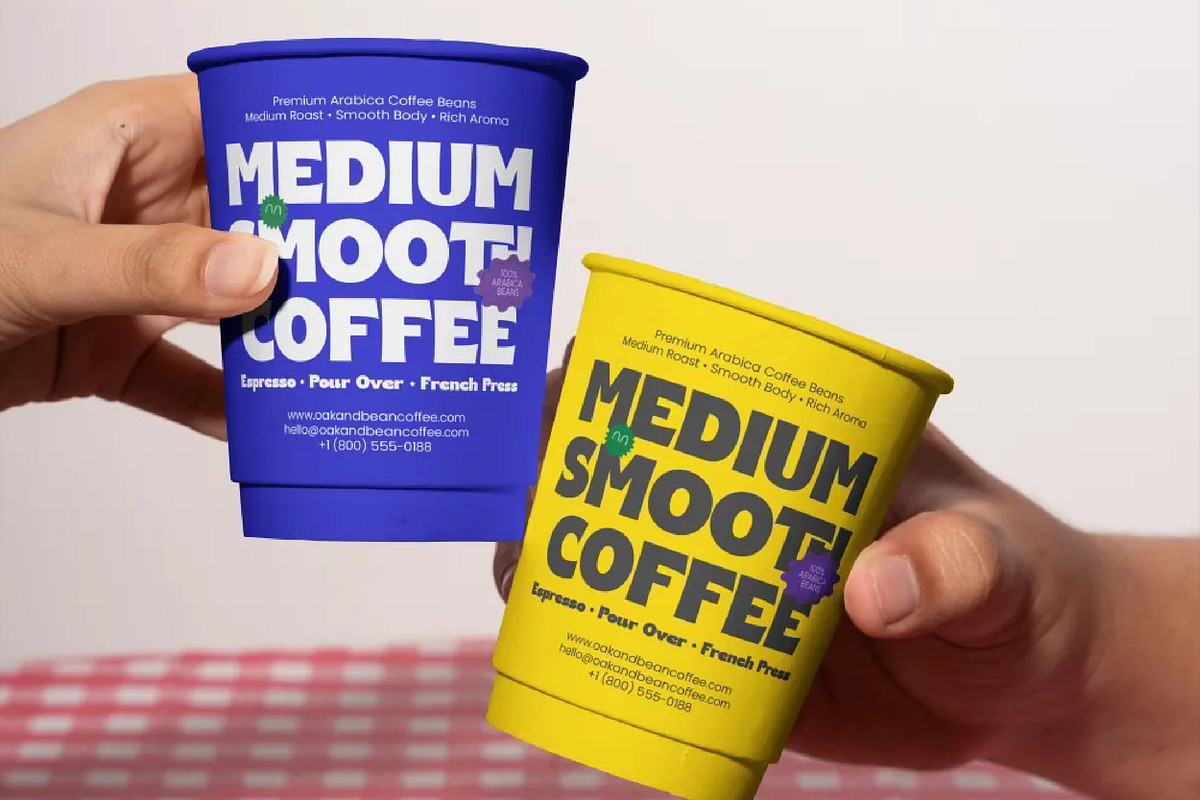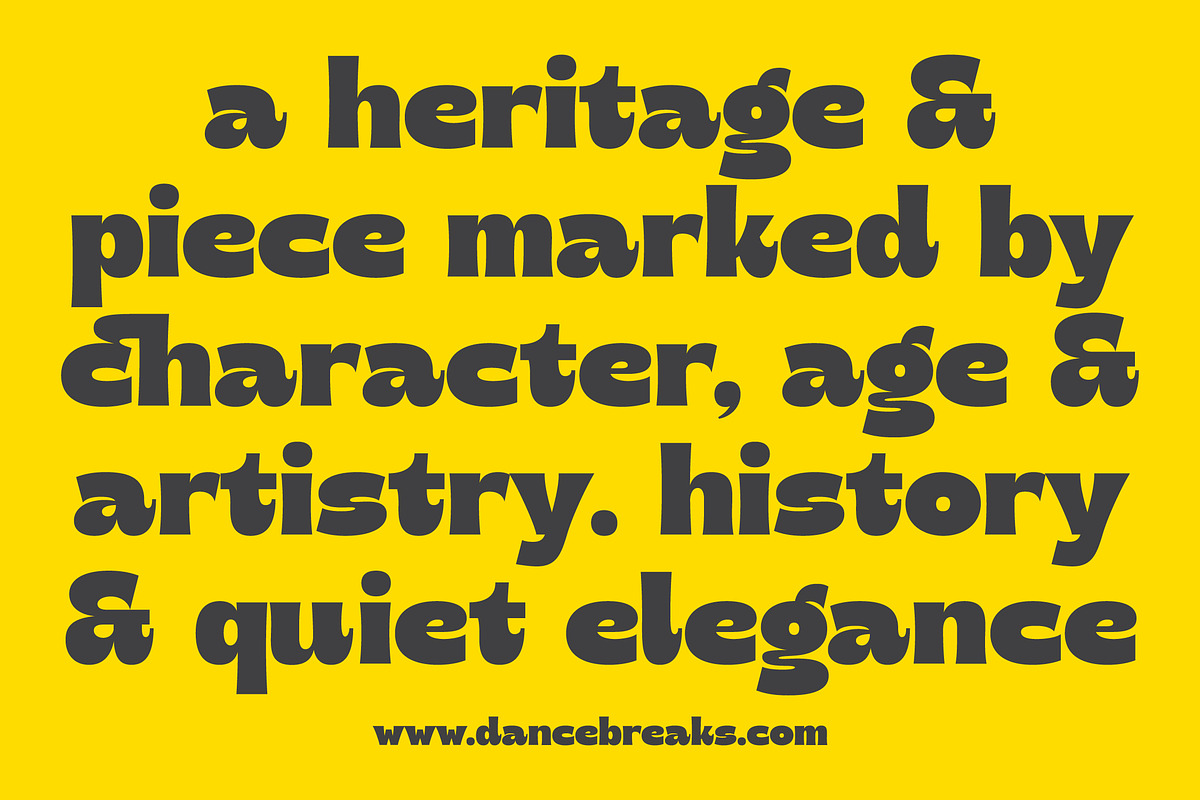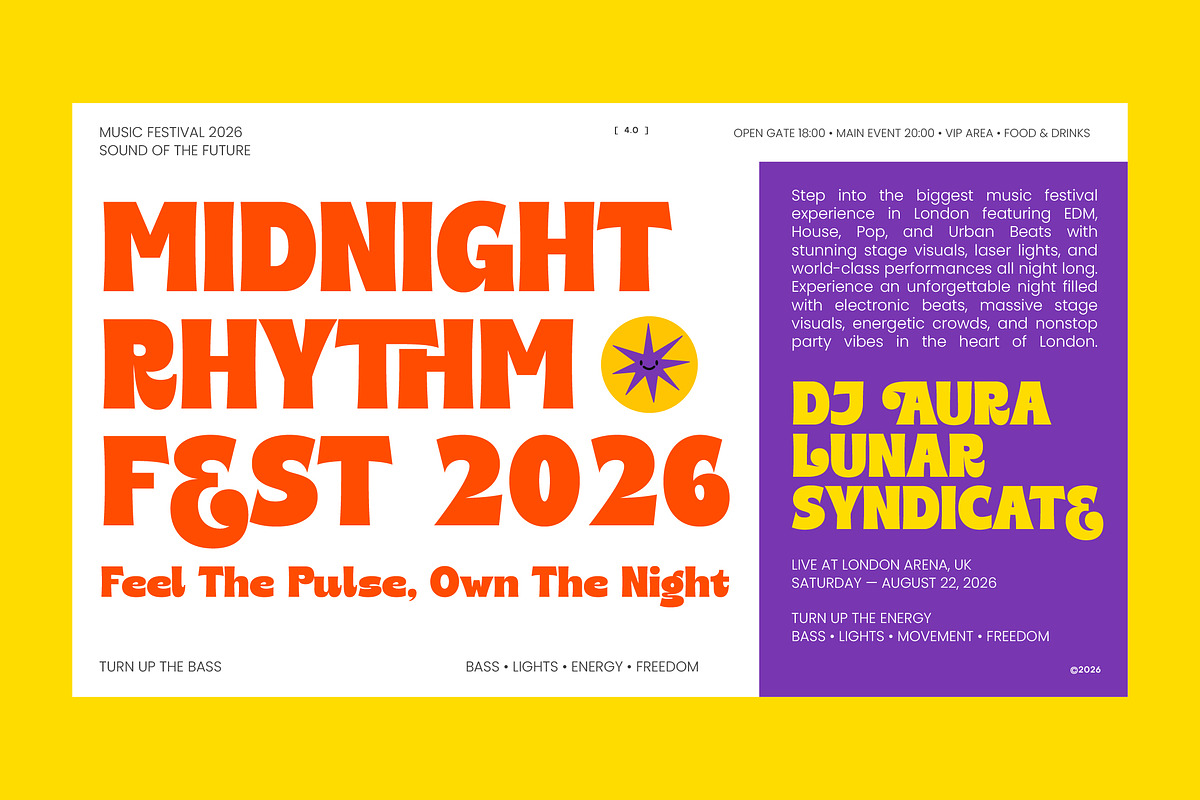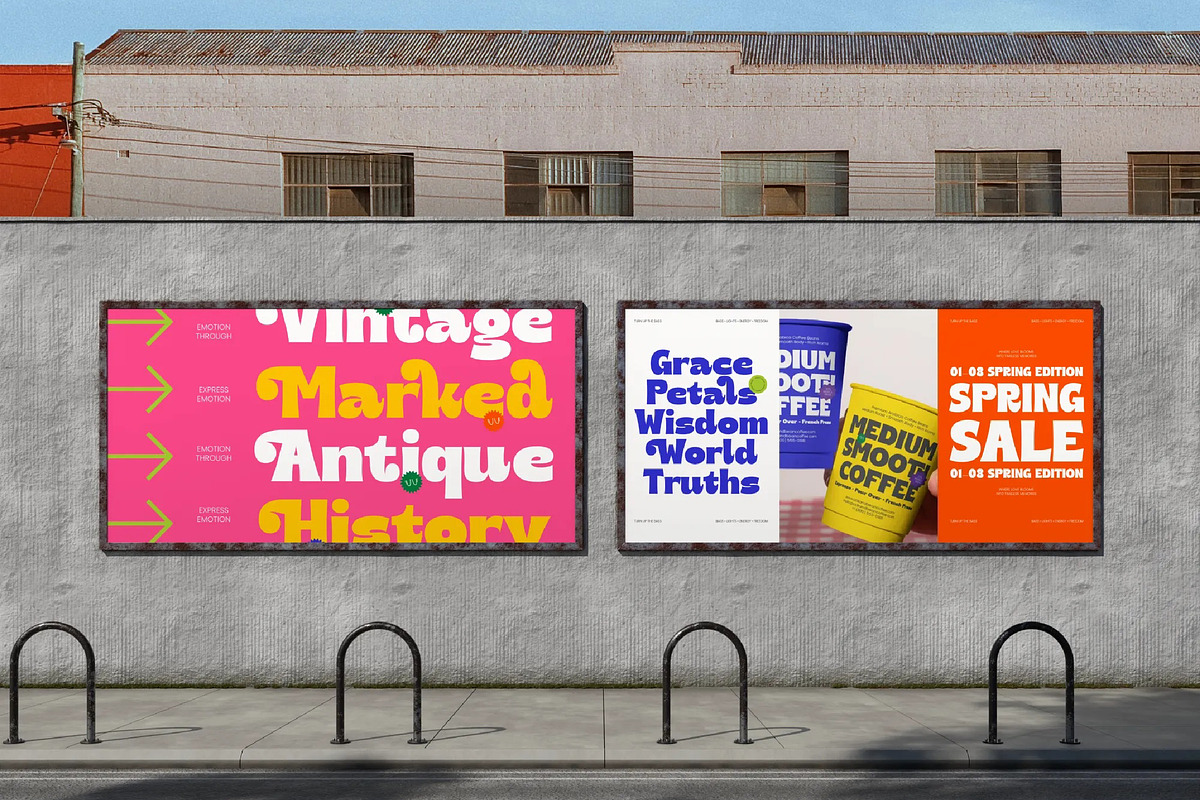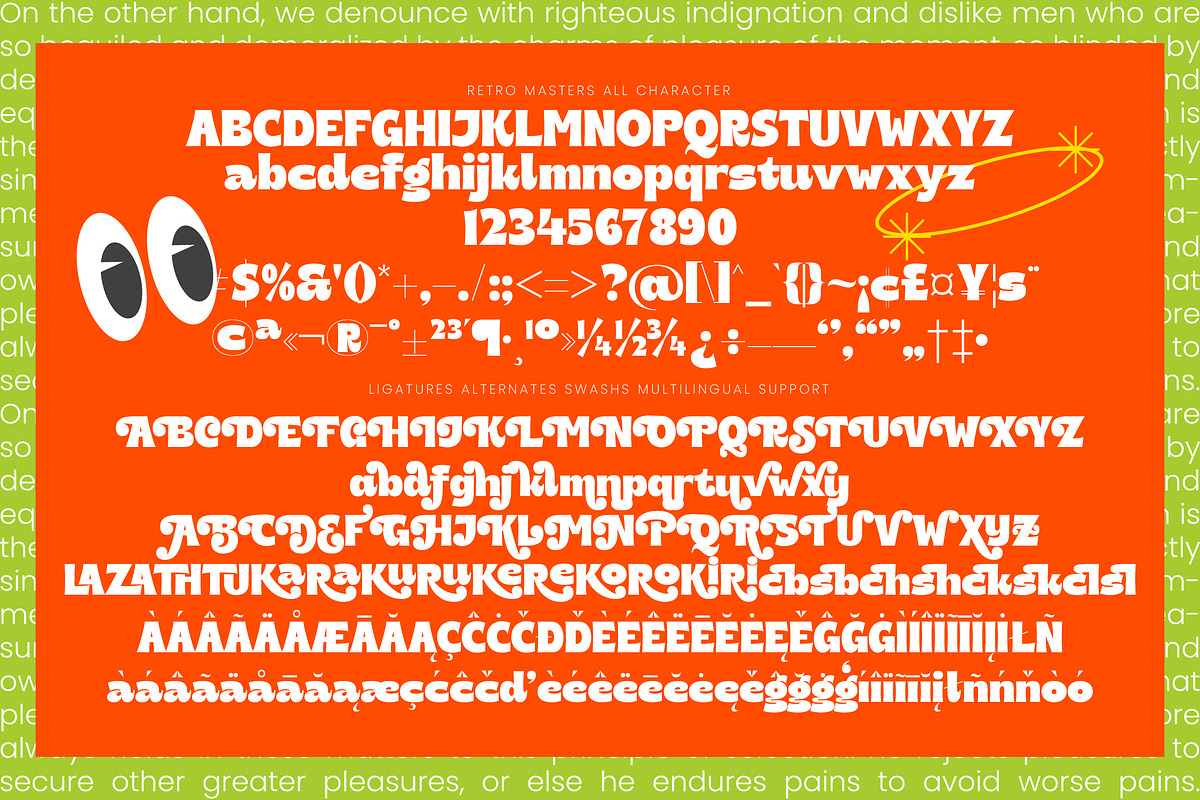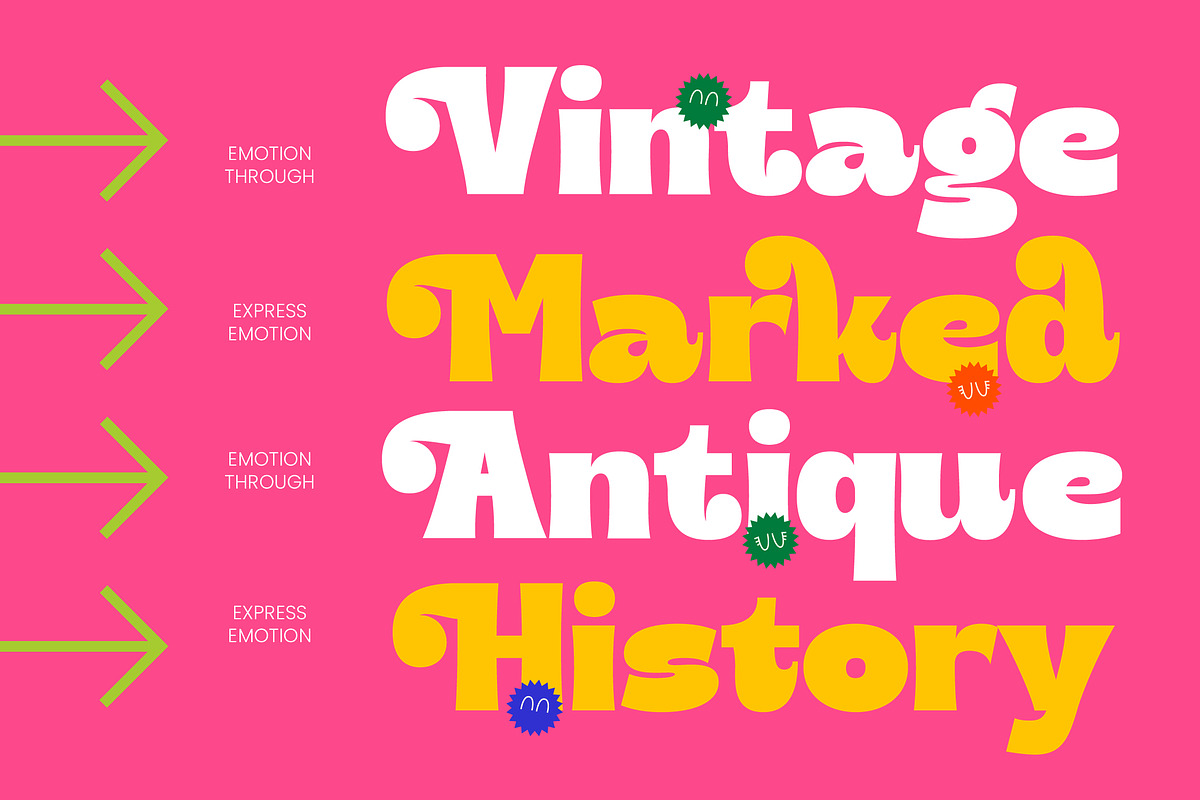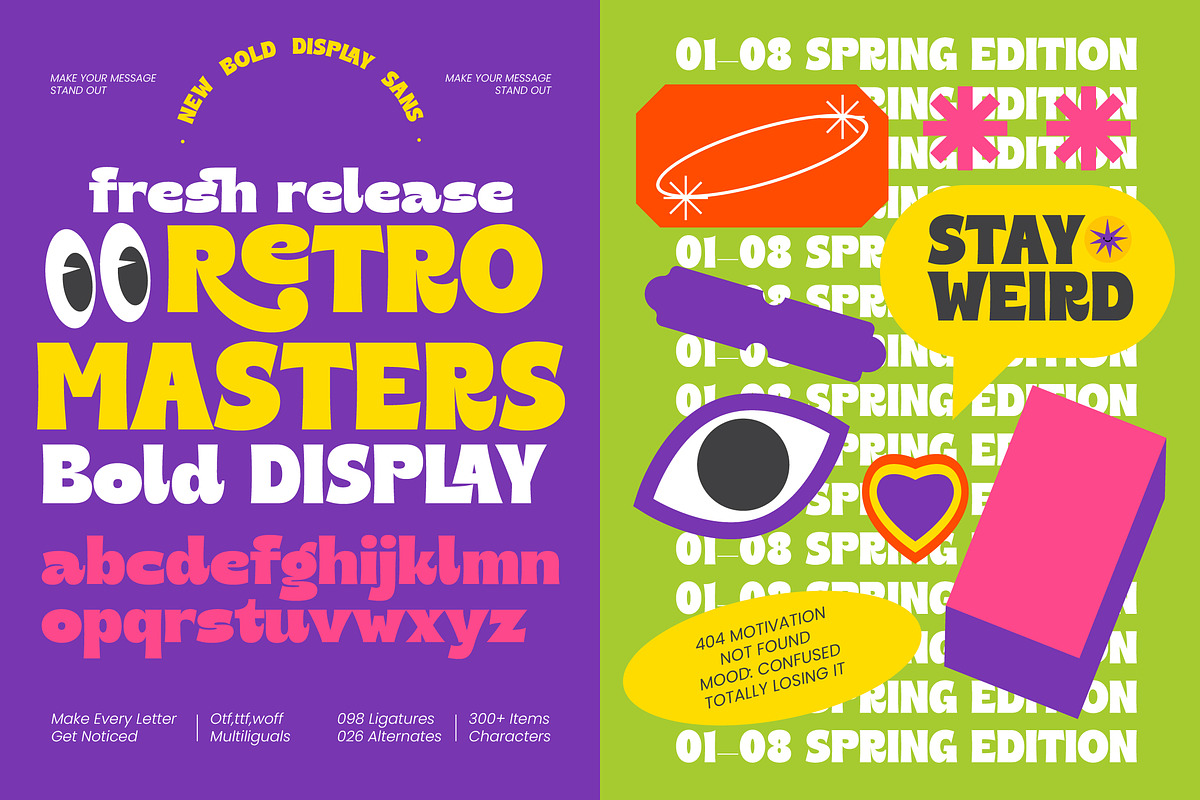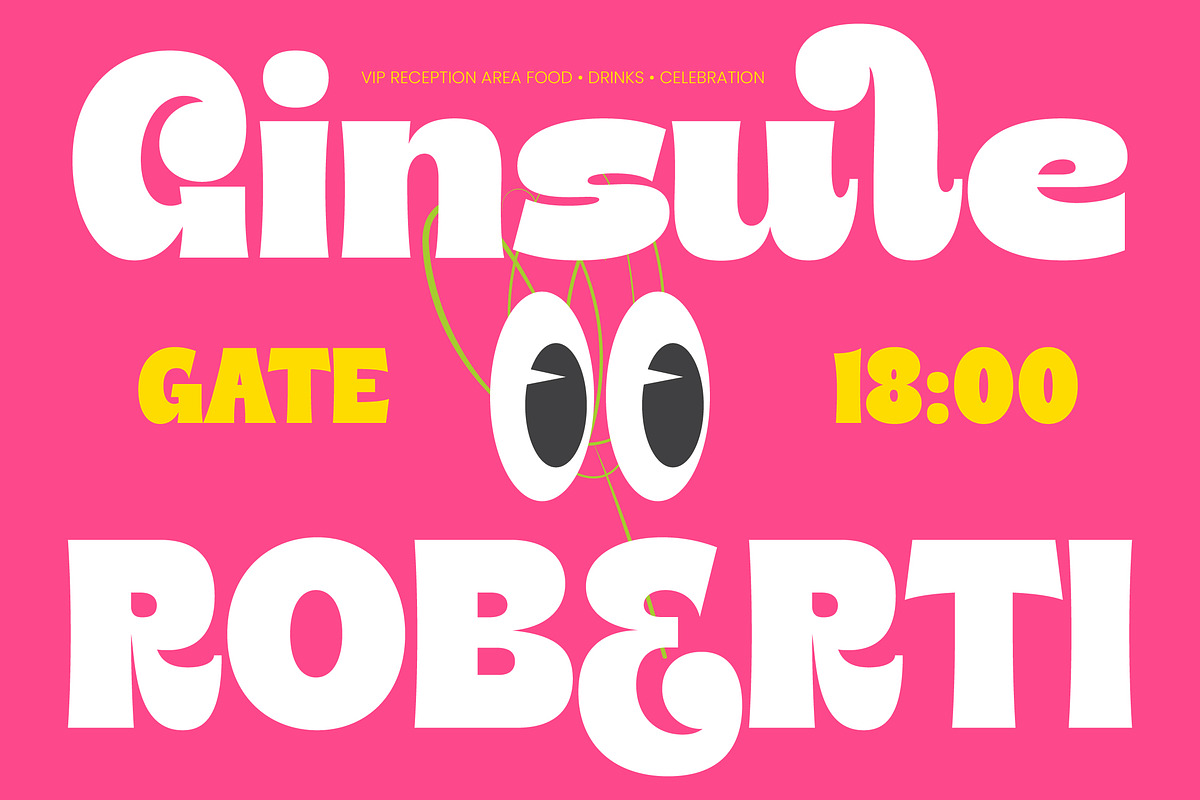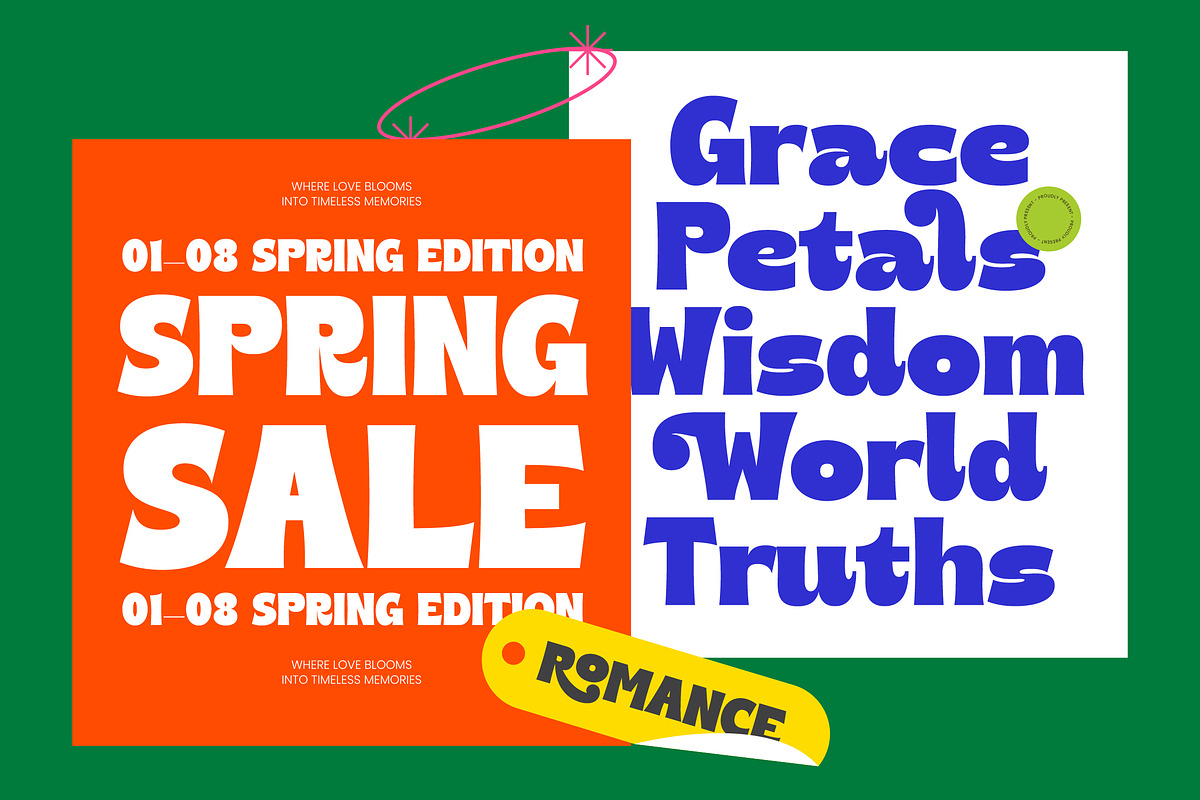
Retro Masters New Bold Display Sans
Retro Masters - New Bold Display Sans , Command attention with an aesthetic that bridges the gap between nostalgia and modern boldness. Retro Masters - New Bold Display Sans is a powerhouse of typographic expression, blending vintage 70s flair with a contemporary heavyweight aesthetic. Its unique construction features fluid curves and dynamic letterforms that ensure your headlines resonate with energy. Designed for maximum impact, Retro Masters - New Bold Display Sans transforms standard layouts into high-energy visual experiences.
Unlock unparalleled creative freedom with a suite of professional typographic features. This typeface isn't just about bold looks; it offers incredible technical depth with over 98 custom ligatures and 26 stylish alternates. These features allow Retro Masters - New Bold Display Sans to create organic, flowy text compositions that feel bespoke and high-end. Whether you are aiming for a psychedelic vibe or a clean modern-retro look, Retro Masters - New Bold Display Sans provides the flexibility needed to stand out in a crowded digital landscape.
Expand your brand’s reach across the globe without compromising on visual style. With its extensive multilingual support, Retro Masters - New Bold Display Sans adapts seamlessly across global markets, making it incredibly versatile for international projects. It supports a wide range of languages, ensuring that the iconic bold personality of the font remains consistent regardless of the region. This makes Retro Masters - New Bold Display Sans an essential asset for global marketing campaigns and cross-border branding initiatives.
Elevate your design portfolio with the perfect solution for high-visibility creative projects. This typeface is the ideal application for streetwear branding, bold packaging design, and dynamic editorial layouts that require a distinct voice. It is perfect for event posters, social media graphics, and experimental logo design where a vibrant attitude is required. By choosing Retro Masters - New Bold Display Sans, you are investing in a premium display font that guarantees your message will be heard loud and clear across all visual platforms.